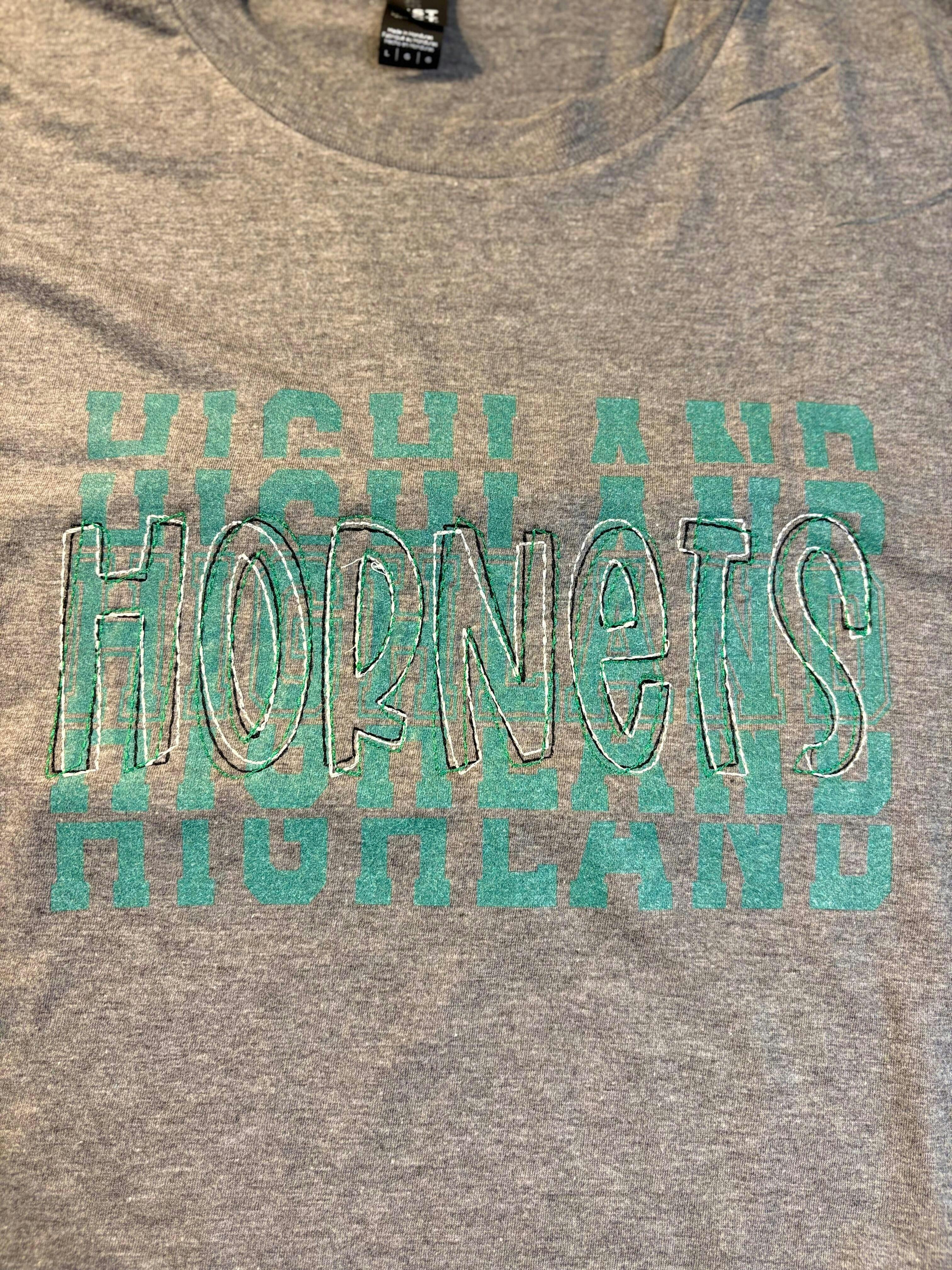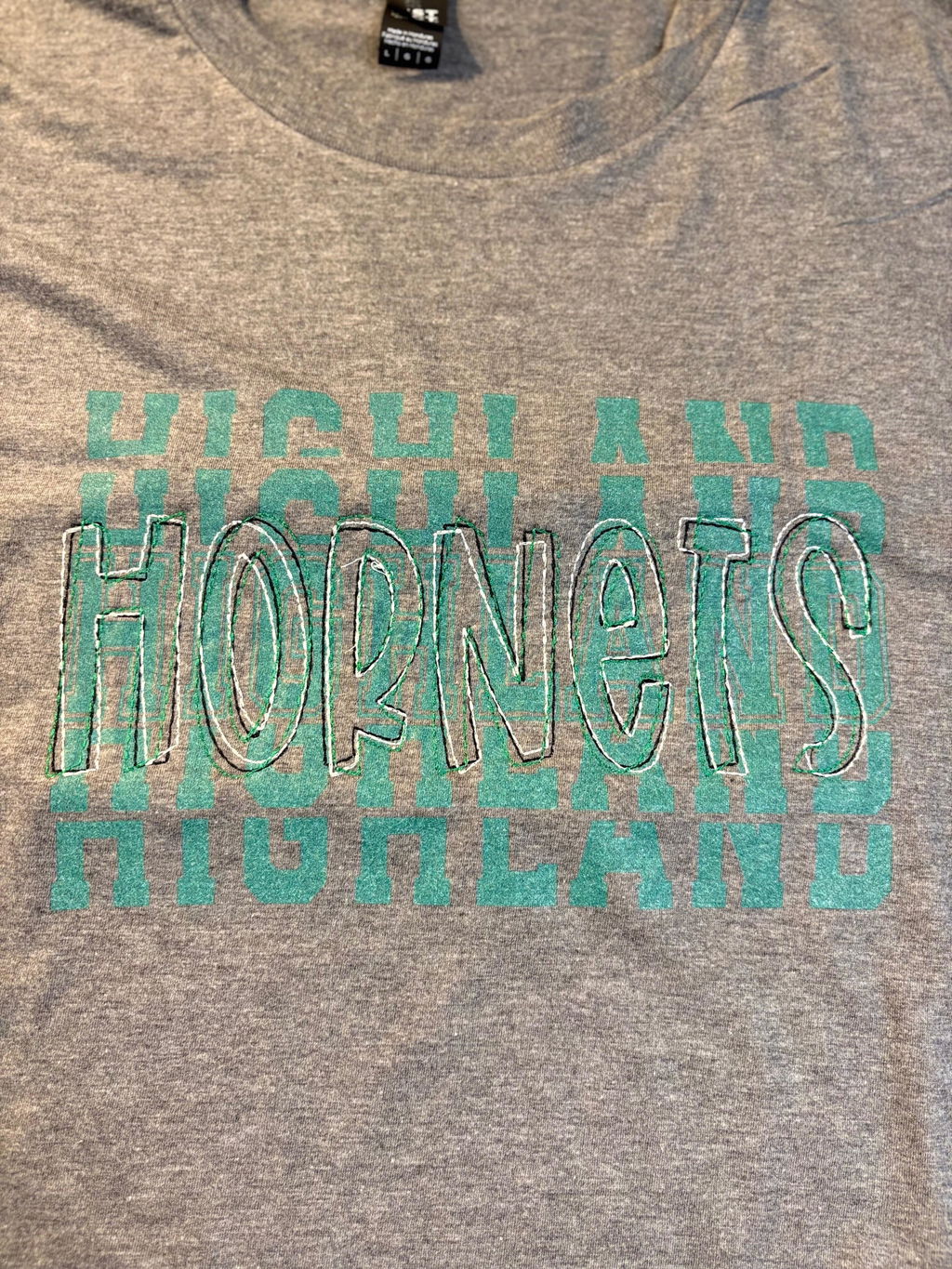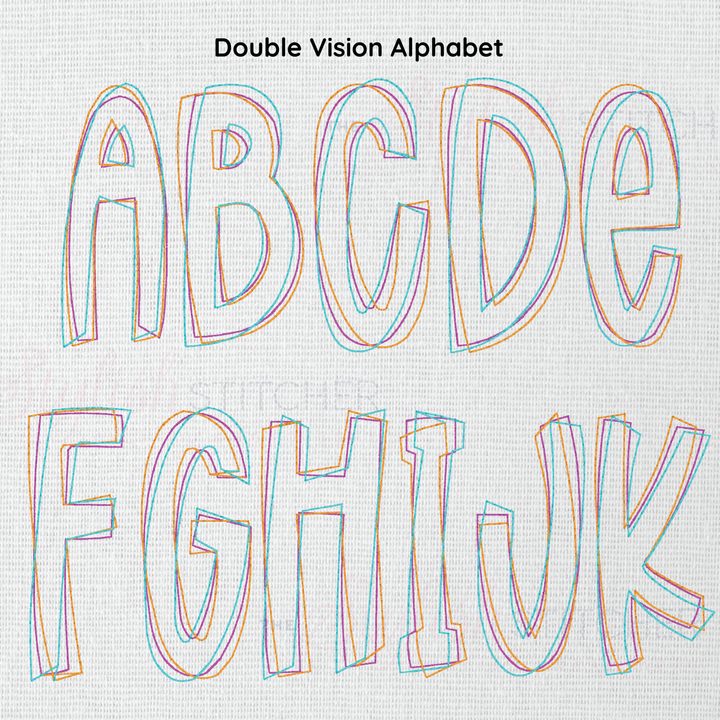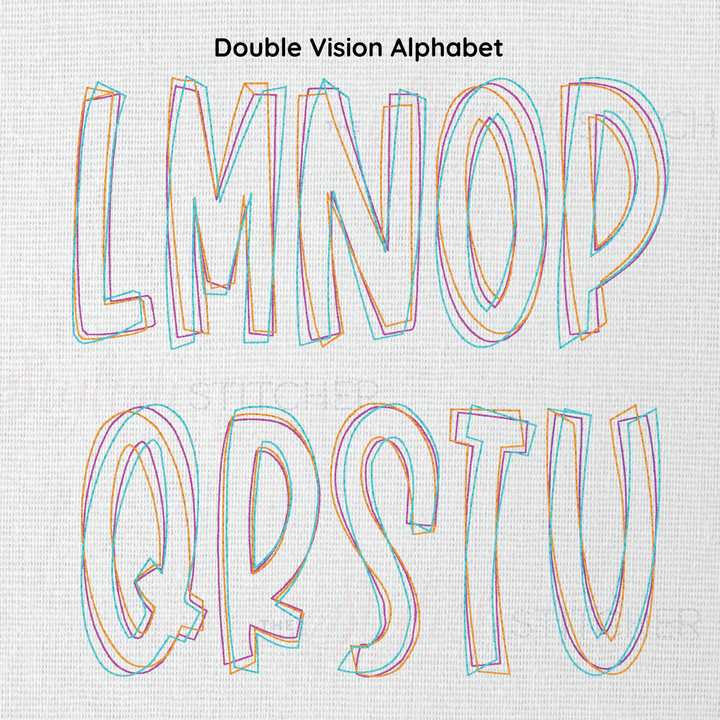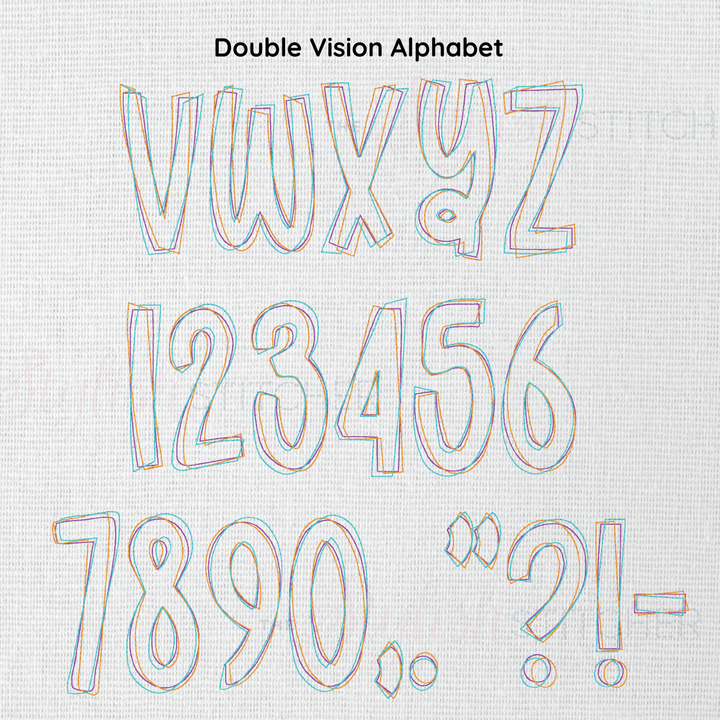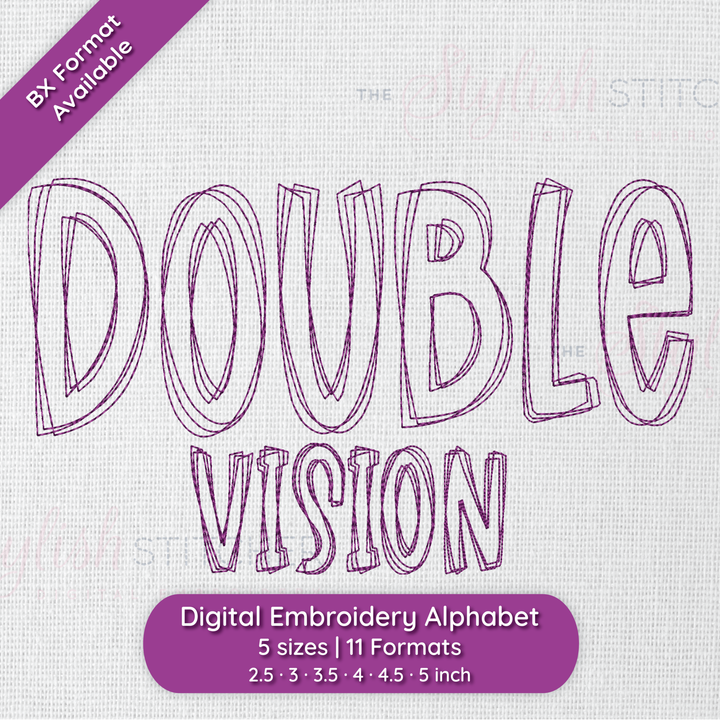
Photograph of stitched out Double Vision embroidery font
Photograph of stitched out Double Vision embroidery font alphabet
Double Vision Outline Embroidery Font
Double Vision is a unique outline embroidery font that brings a bold twist to your designs. With its layered, offset effect, this font adds depth and a touch of playful illusion to your projects, making it stand out from the ordinary. Perfect for statement pieces, this font is all about making your embroidery pop—literally and visually.
Stitch Type: Sculpture Run (Run of 3 and 1)